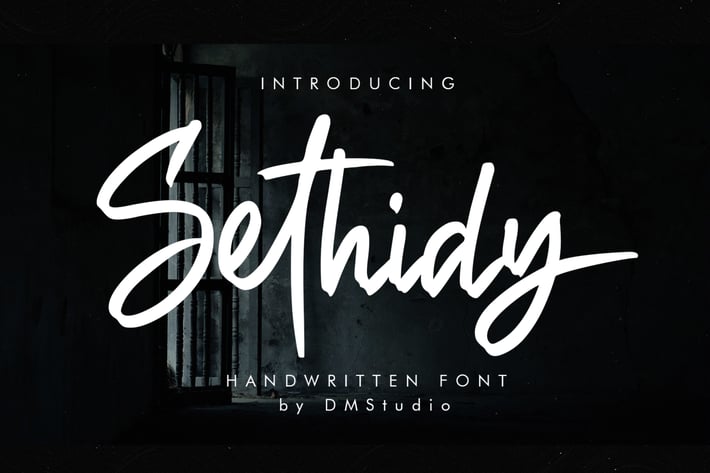
Sethidy - Handwritten Font
Sethidy the handwriten script font. Great choice for logos, branding, crafting, t-shirt design, printing
projects, book covers, albums, quotes, cards, etc. Comes with extra
alternatives and ligatures to make your designs more catchy.